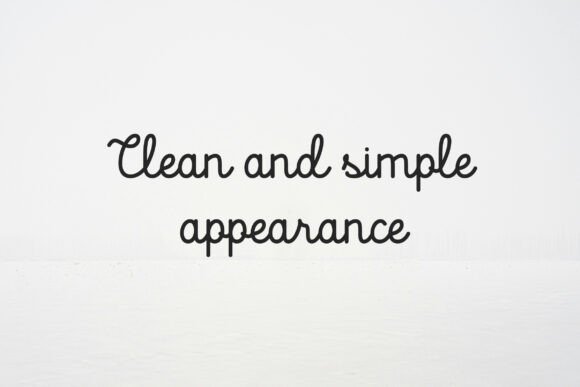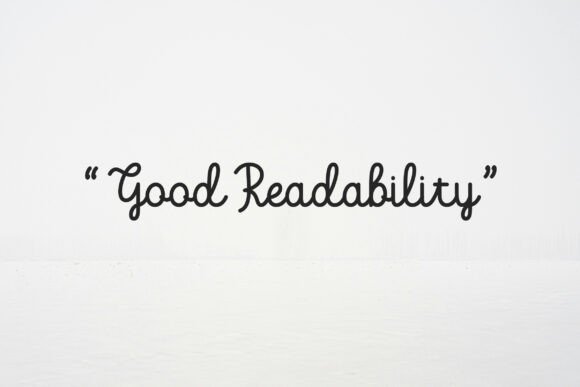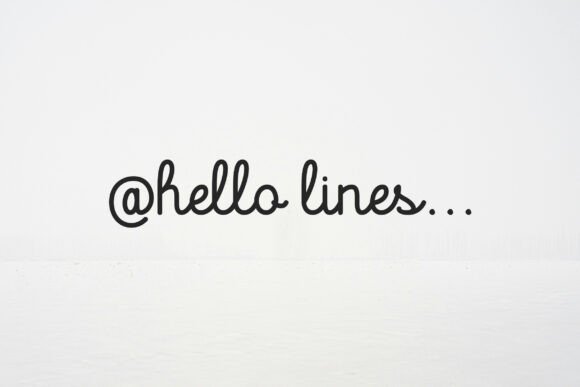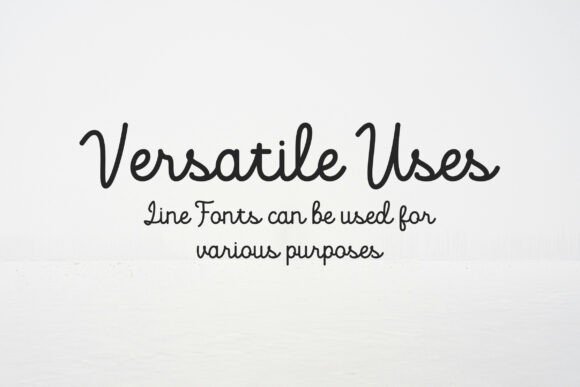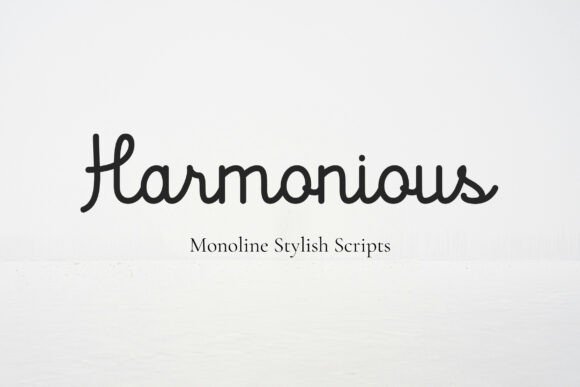
Introducing Harmonious Font: Elevate Your Designs with Elegance
In the world of typography, a font can make or break a design. For those seeking a delicate and elegant touch, look no further than the Harmonious Font. This beautifully crafted handwritten font is a masterpiece of distinct and well-balanced letters, perfect for designers and crafters aiming to infuse their projects with a touch of sophistication.
The Charm of Harmonious Font
Harmonious Font stands out with its incredibly versatile style, making it an ideal choice for a wide range of design applications. From wedding invitations and branding materials to packaging and digital content, this font adapts seamlessly, ensuring your designs exude elegance and refinement. Its unique charm lies in its ability to convey emotion and personality, adding a human touch to any project.
Key Features of Harmonious Font
- Delicate and Elegant: Each letter is carefully designed to contribute to the overall harmony of the font, making it perfect for designs that require a touch of grace.
- Distinct and Well-Balanced Letters: The font’s design ensures that every letter stands out while maintaining a cohesive look, essential for readability and aesthetic appeal.
- Incredibly Versatile: Whether you’re working on a digital platform or a print project, Harmonious Font adapts beautifully, offering endless possibilities for creative expression.
- Spectacular Designs: With Harmonious Font, creating stunning designs is effortless. Its unique style elevates any project, making it a valuable addition to your typography collection.
Applications of Harmonious Font
The versatility of Harmonious Font makes it suitable for various design projects. Here are some of the top applications:
- Wedding and Event Invitations: Add a touch of elegance to your wedding invitations, save-the-date cards, and other event-related designs.
- Branding and Logo Design: Establish your brand’s identity with a sophisticated and memorable logo that stands out.
- Digital Content: Enhance your website, blog, or social media graphics with a font that captures attention and conveys your message elegantly.
- Packaging Design: Make your product packaging more appealing and distinctive with Harmonious Font, ensuring it stands out on the shelves.
Tips for Using Harmonious Font
To maximize the potential of Harmonious Font, consider the following tips:
- Pair with Complementary Fonts: For contrast and visual interest, pair Harmonious Font with a more straightforward, sans-serif font.
- Adjust Letter Spacing: Fine-tune the letter spacing to ensure optimal readability and aesthetic appeal for your specific design.
- Experiment with Colors: While the font itself is elegant, experimenting with different colors can further enhance its beauty and suitability for your design.
Harmonious Font is more than just a typeface; it’s a design element that can transform your projects with its delicate and elegant style. Its versatility, distinctiveness, and balance make it a valuable asset for designers and crafters looking to create spectacular designs. Whether you’re aiming for sophistication, elegance, or a touch of personal flair, Harmonious Font is your go-to choice. Embrace its beauty and let your designs speak with harmony and grace.